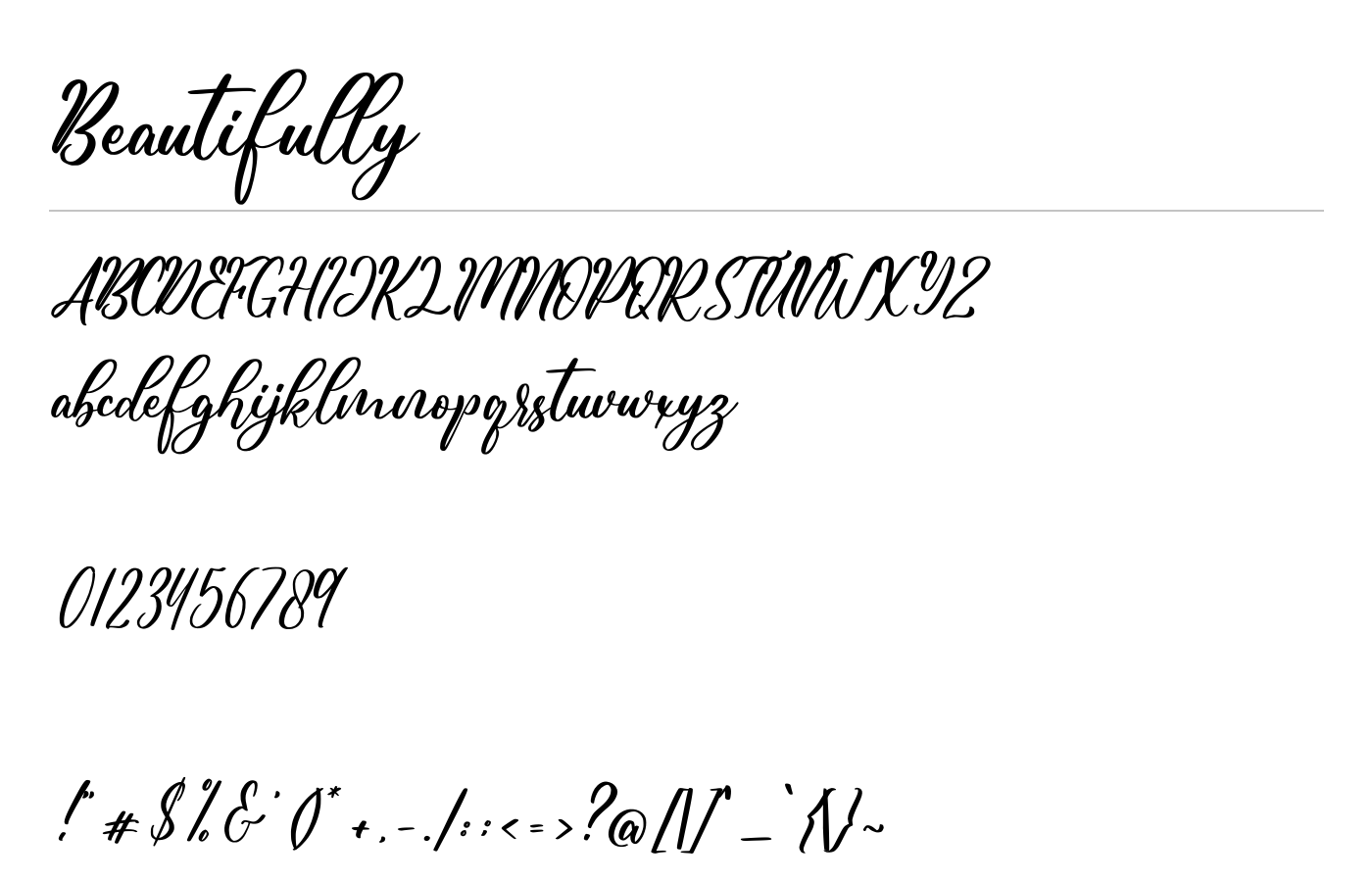
Beautifully Font is an elegant, cursive script with a smooth, flowing style that mimics natural handwriting. Its slender, slightly condensed letterforms and moderate contrast give it a refined yet approachable look, making it ideal for invitations, branding, and creative projects that seek a personal, graceful touch. This font works best in uses where warmth and sophistication are key, such as logos, packaging, and stylish editorial headlines.
Beautifully Font
About Beautifully Font
| Font family | Beautifully Font |
| Designer | Novia Himatunnisa |